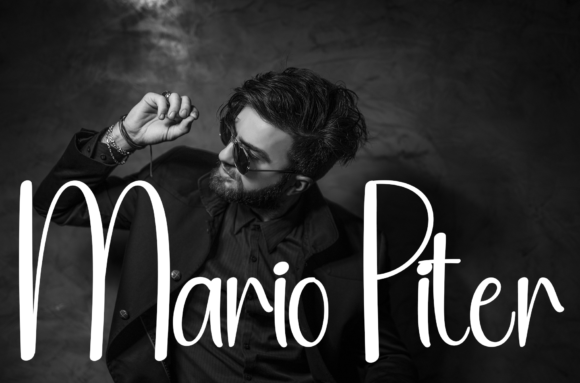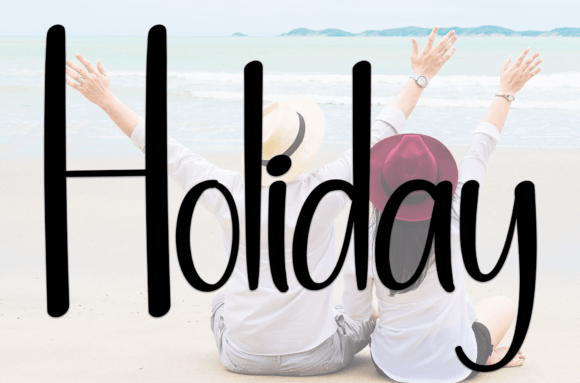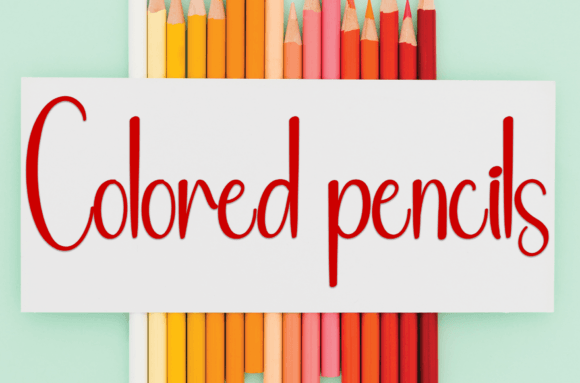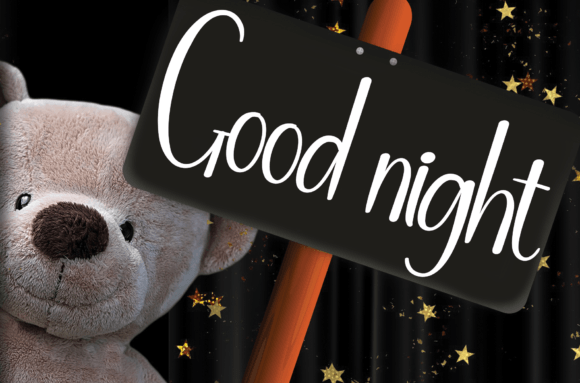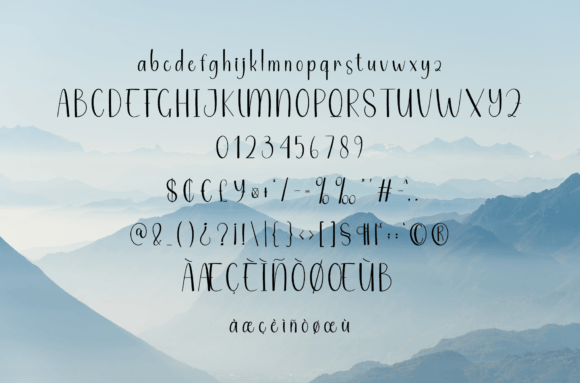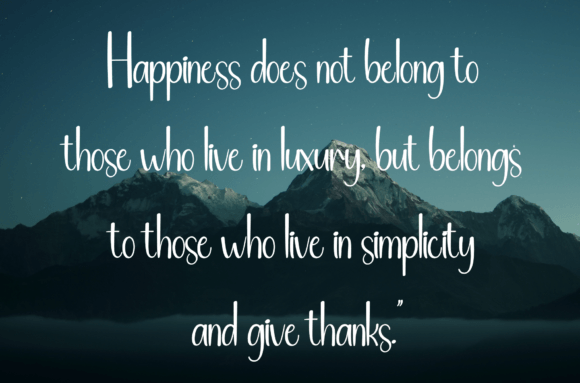
The Sweet and Friendly Front House Font: A Designer’s Delight
I’ll never forget the time I was working on a wedding invitation project, and my client asked for a font that was “fun, yet elegant.” I scoured the internet, tried out dozens of fonts, but nothing seemed quite right. That was until I stumbled upon Front House, a sweet and friendly handwritten font that instantly captured the playful and romantic vibe I was looking for.
Front House is a beautiful, hand-crafted font that’s perfect for adding a personal touch to your designs. In this article, I’ll share my experience with this lovely font, its features, and how to make the most of it in your designs.
An Honest Review of Front House Font
What I Love About Front House ✨
- ✅ Sweet and Friendly Vibe: Front House has a warm, inviting feel that’s perfect for creating designs that feel personal and approachable.
- ✅ Cute and Fun: This font is ideal for designs that need a playful touch, from wedding invitations to birthday cards and more.
- ✅ Highly Readable: Despite its playful nature, Front House is surprisingly readable, even at smaller font sizes.
- ✅ Versatile: This font works beautifully in a variety of design contexts, from digital to print.
- ⚠️ Limited Formality: Front House is a highly informal font, which means it may not be the best choice for very formal or corporate designs.
- ⚠️ Glyph Limitations: While Front House has a range of lovely glyphs, it may not have every special character or symbol you need.
The Story Behind Front House Font
Front House was designed with the intention of creating a friendly, approachable font that’s perfect for everyday designs. The designer aimed to craft a font that feels like a handwritten note from a friend – warm, inviting, and full of personality.
Q: What makes Front House so special?
A: Front House stands out for its sweet, friendly vibe and highly readable design, making it perfect for a wide range of creative projects.
Q: Is Front House difficult to read?
A: No, despite its playful nature, Front House is surprisingly readable, even at smaller font sizes.